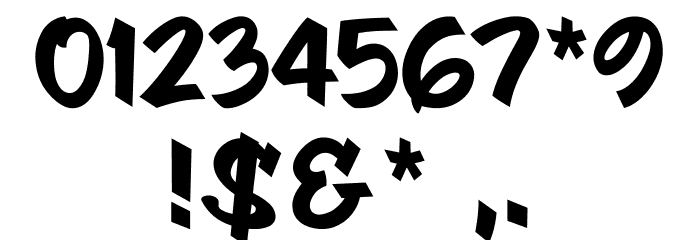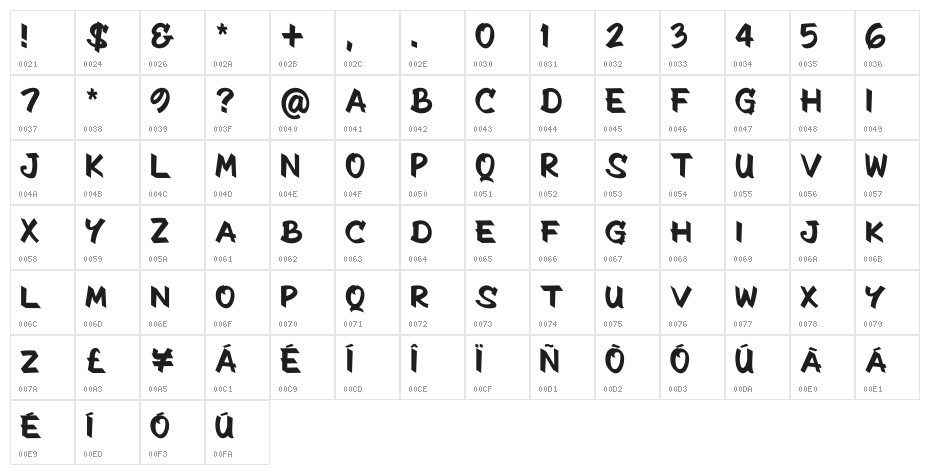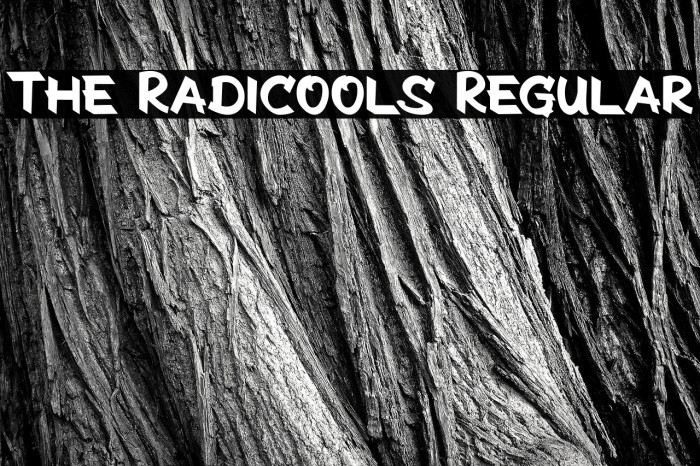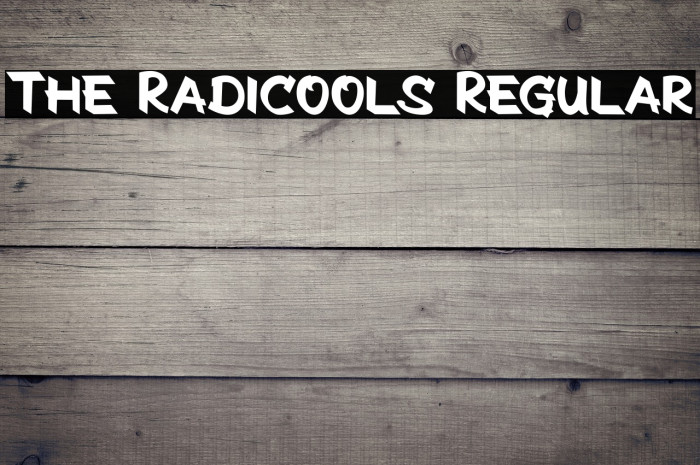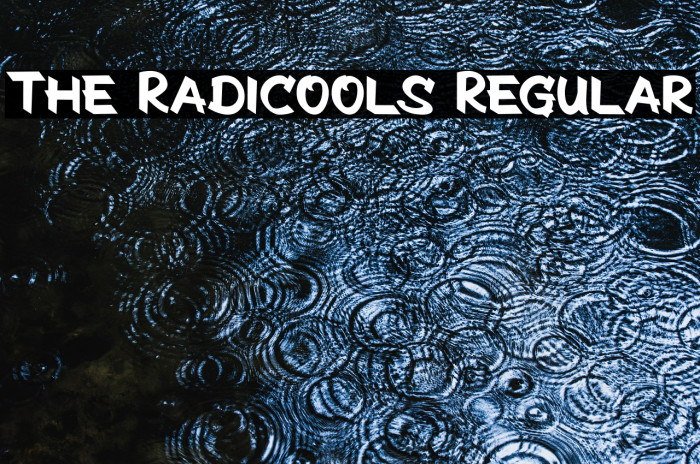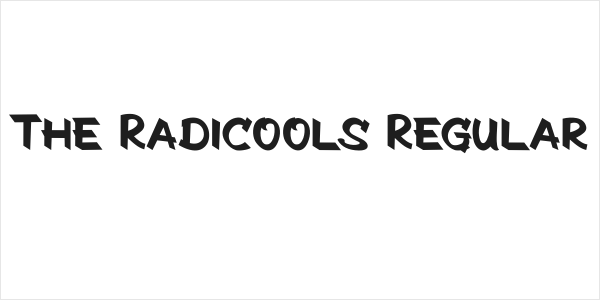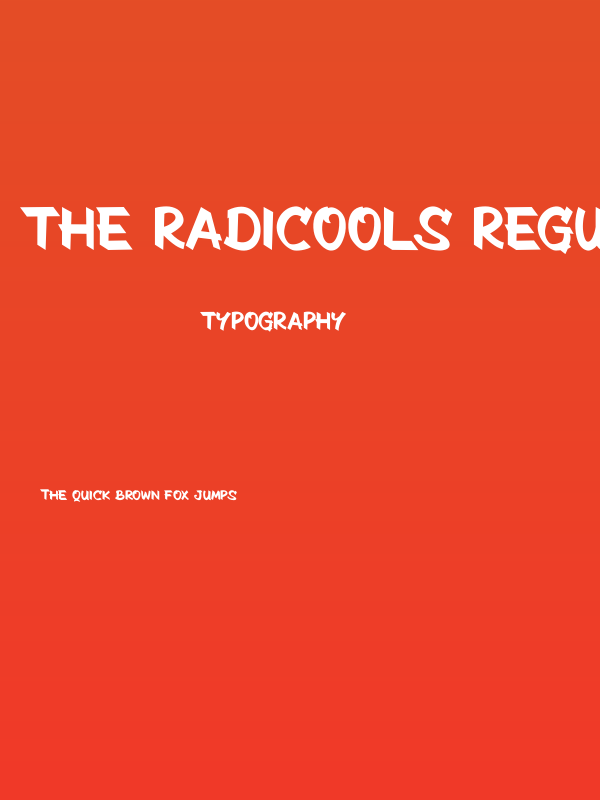
The Radicools Regular Font
The Radicools Regular Description
This font features a bold and playful design with a distinctive, energetic style. The characters are crafted with sharp angles and exaggerated curves, giving them a dynamic and lively appearance. The uppercase and lowercase letters maintain a consistent style, while the numbers and special characters complement the overall aesthetic. The font's unique personality makes it stand out, with a slightly rebellious and unconventional vibe. Its boldness and creativity make it suitable for projects that require a strong visual impact.
| Overall Style | Modern, Energetic |
| Proposed Projects | Ideal for posters, album covers, event flyers, and branding projects that require a bold and energetic style. |